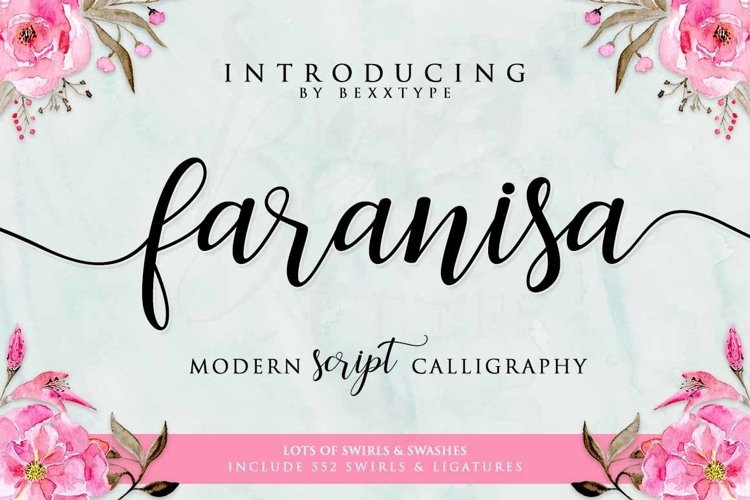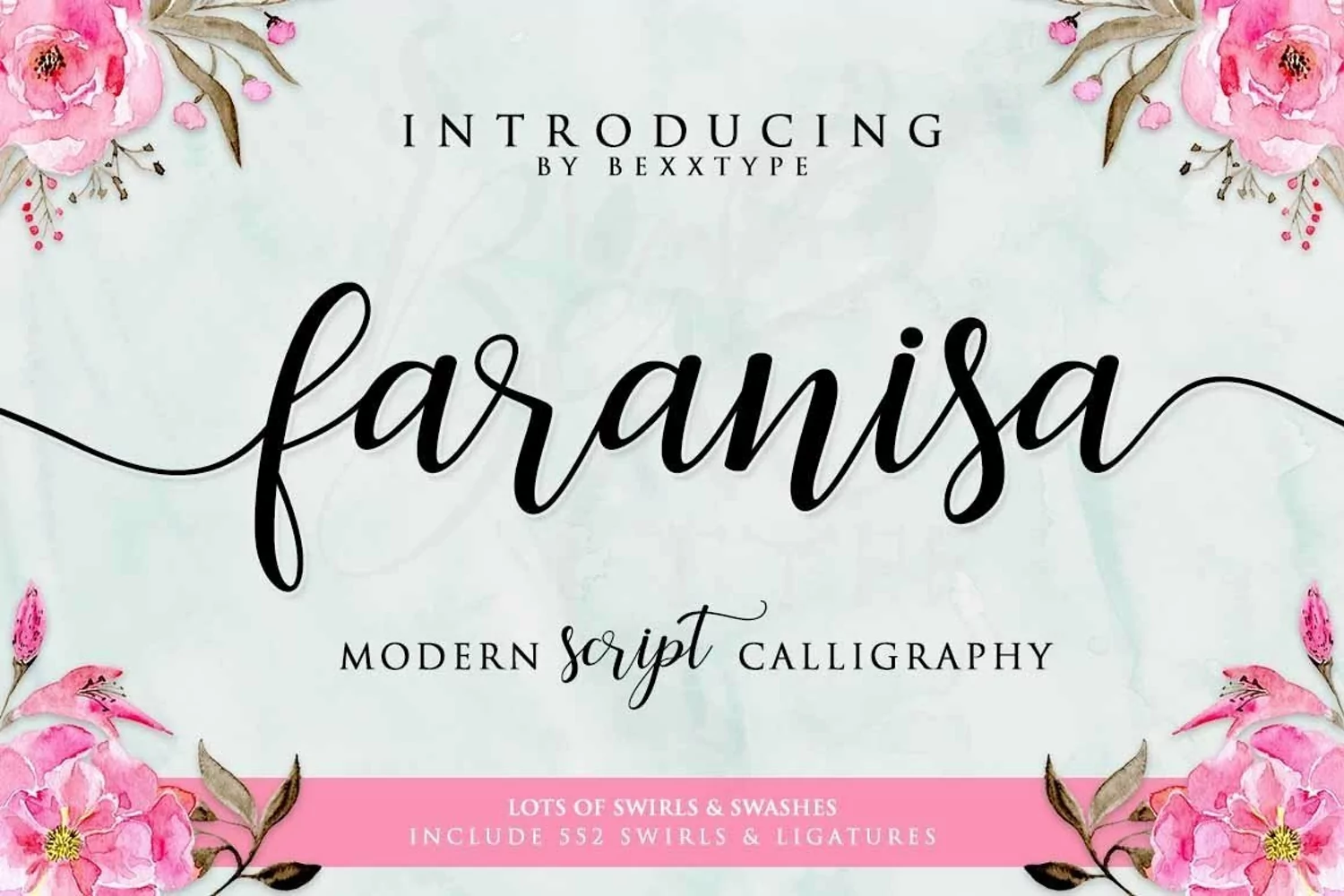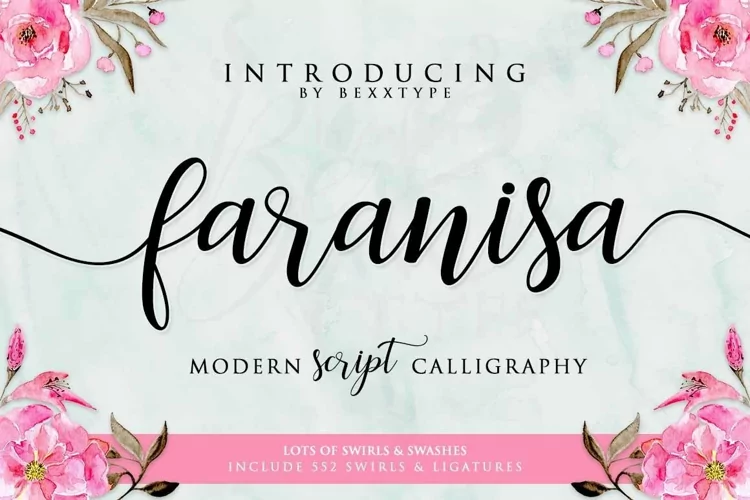
Faranisa Script is perfect for invitations, cards, posters, wall art and much much more. This delicate script font includes 552 glyphs to keep your designs looking unique and fresh each time.